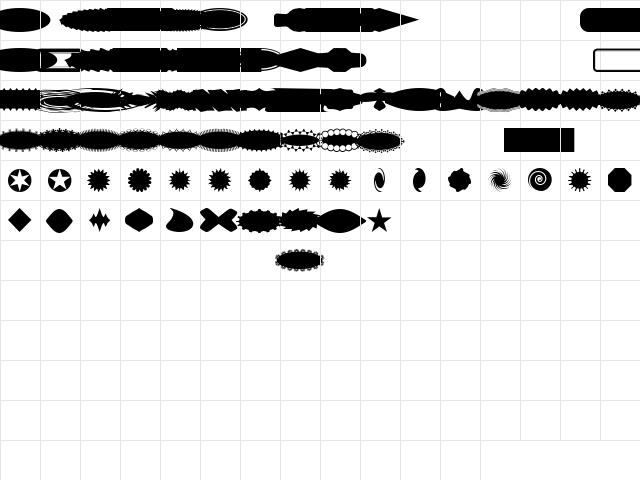
ButtonButton Regular
Design Context for ButtonButton Typeface
ButtonButton is a composed and adaptable typeface that performs quietly and consistently across a wide range of design contexts.